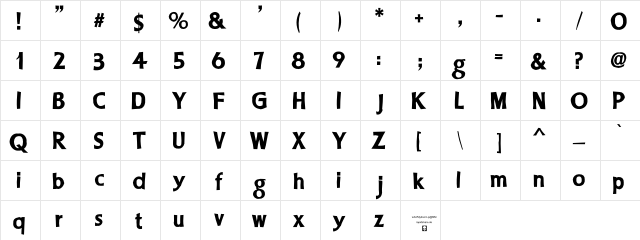
LHF Stevens Percepta Bold Regular
| Foundry | Arthur Vanson for Letterhead Fonts |
| Designer | Arthur Vanson |
Design Context for LHF Stevens Percepta Bold Typeface
LHF Stevens Percepta Bold offers clean, dependable letterforms without strong stylistic allegiance, making it a practical choice for designers who need flexibility. The heavy weight commands attention and anchors typographic hierarchies.